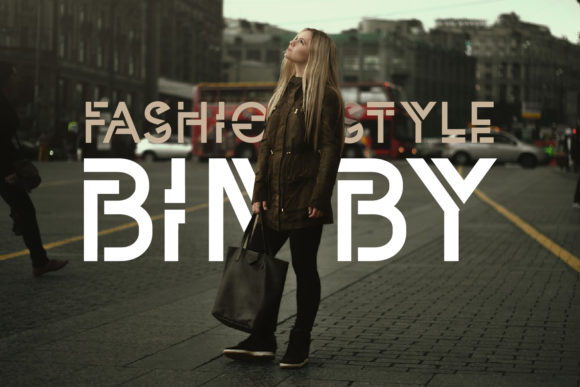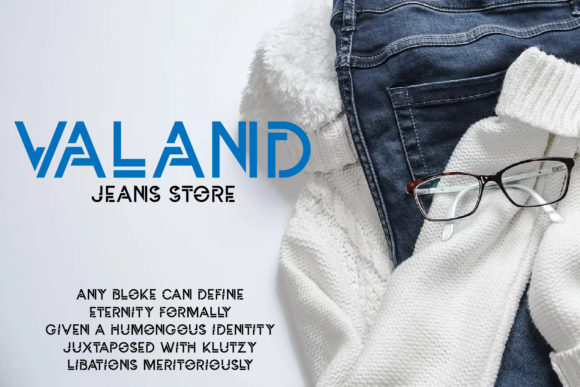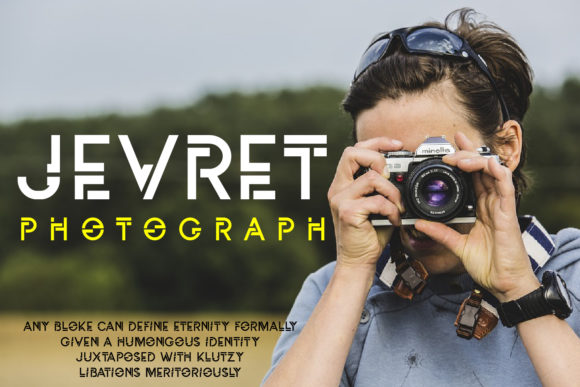
The Designer’s Delight: Exploring the Bold and Eclectic Bosans Font
I’ll never forget the moment I stumbled upon the perfect font for a client’s branding project. I had been searching for hours, scrolling through endless pages of Google Fonts, and testing out different combinations in Canva. But then, I saw it – Bosans. The bold, abstract shapes and eclectic vibe immediately caught my attention. It was love at first sight! 💕
As a designer, I’m always on the lookout for fonts that can help my clients stand out from the crowd. And Bosans does just that. This display font is not only cool and trendy but also incredibly versatile. In this article, I’ll dive into what makes Bosans so special, its features, and how to make the most of it in your designs.
- ✅ Unique and eye-catching design that’s perfect for making a statement
- ✅ Bold and abstract shapes that add a touch of eclecticism to any design
- ✅ Highly versatile and can be used for a wide range of projects, from branding to advertising
- ✅ Easy to read, even in larger sizes
- ⚠️ May not be suitable for body text or smaller sizes, as it can be overwhelming
- ⚠️ Limited use of punctuation and special characters, but this is a common limitation for display fonts
Exploring Alternatives: Similar Fonts to Bosans
If you love Bosans, you may also want to check out these similar fonts:
- Montana: A bold and modern sans-serif font with a similar eclectic vibe to Bosans. Use it for headlines and titles that need a strong, attention-grabbing presence.
- Kabel: A classic display font with a similar abstract feel to Bosans. Use it for logos, branding, and advertising projects that need a touch of sophistication.
- Avant Garde: A geometric sans-serif font with a similar bold and futuristic feel to Bosans. Use it for projects that need a strong, avant-garde presence.
- Chalet: A luxurious and elegant sans-serif font with a similar high-end feel to Bosans. Use it for branding, packaging, and advertising projects that need a touch of luxury.
The Story Behind Bosans: Designer Inspiration
The story behind Bosans is one of creative experimentation and pushing the boundaries of traditional typography. The font’s designer was inspired by the abstract shapes and eclectic vibe of modern art and architecture. The result is a font that’s both bold and beautiful, with a unique personality that’s sure to make it stand out in any design.
| Font Name | Bosans Font |
| Author | da_only_aan |
Q: What type of projects is Bosans best suited for?
A: Bosans is perfect for projects that need a bold and eye-catching font, such as branding, advertising, and packaging.
Q: Can I use Bosans for body text?
A: While Bosans is a beautiful font, it’s not recommended for body text or smaller sizes. It’s best used for headlines, titles, and short paragraphs.